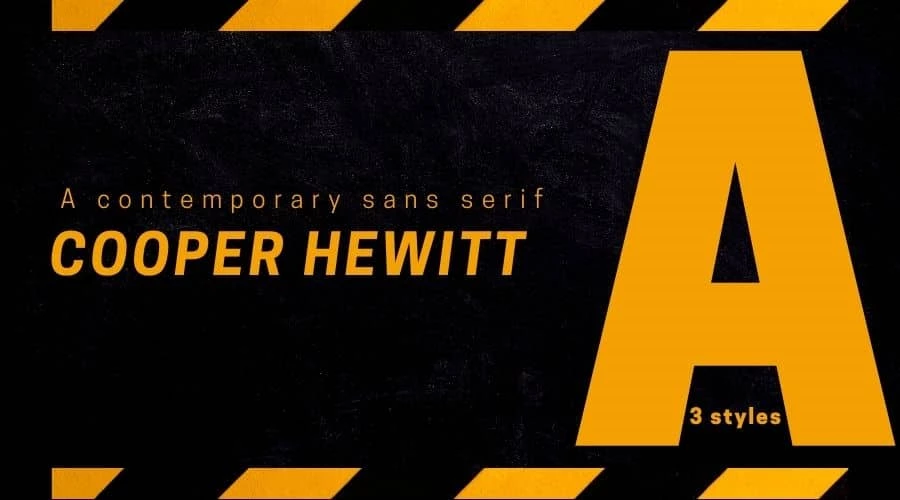
Cooper Hewitt font is a new contemporary Sans-serif, with characters composed of modified geometric curves and arches. Initially commissioned by Pentagram to evolve his Polaris Condensed typeface, Chester Jenkins created a new digital form to support the newly transformed museum. “Developing this typeface specifically for Cooper Hewitt has been enormously gratifying,” said Jenkins. “Instead of building on the Polaris structures, I drew everything from scratch, using the existing forms as a rough guide for letter widths and master-stroke thicknesses.”
Cooper Hewitt Font is proper for article use in papers and magazines, corporate ID, advertising, and display typography. The Font also looks good on various Types of quotations.